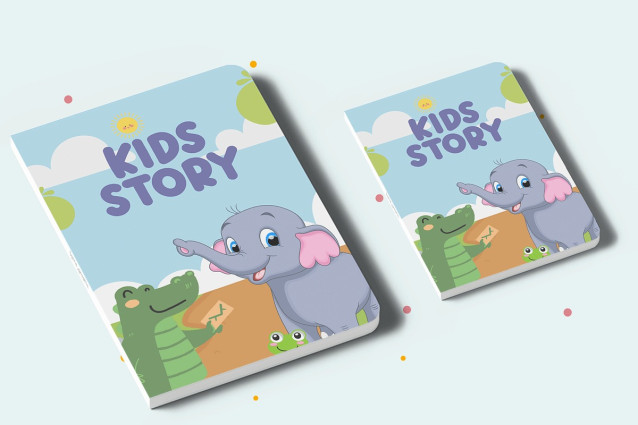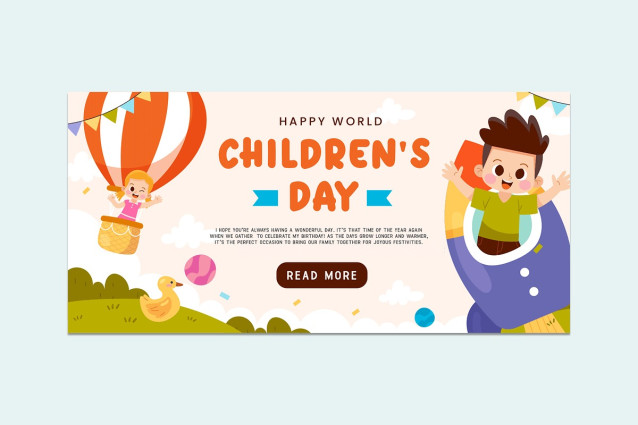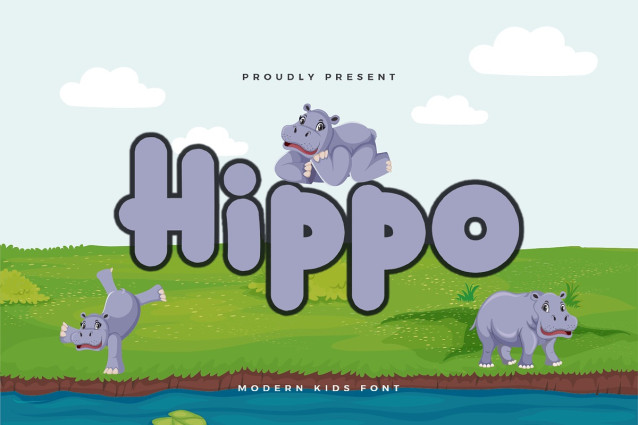
Hippo Kids Font
Hippo Kids Font a modern sans kids font that combines playful boldness with endless fun. Perfect for children’s book designers, educators, and creatives aiming to capture the joy and imagination of young audiences, Hippo offers a cheerful and vibrant typeface that brings any design to life.
Ideal for children’s books, posters, educational materials, logos, and toy packaging, Hippo’s chunky and rounded characters provide a friendly and engaging aesthetic. Each letter is meticulously crafted to ensure readability and visual appeal, making your designs both effective and delightful.
The “Hippo” font includes a complete set of uppercase and lowercase letters, numbers, punctuation marks, and special characters. This versatility allows for seamless integration into various design projects, from lively posters to charming storybooks.
Infuse your designs with joy and creativity using Hippo, the modern sans kids font that makes every project a fun-filled adventure.